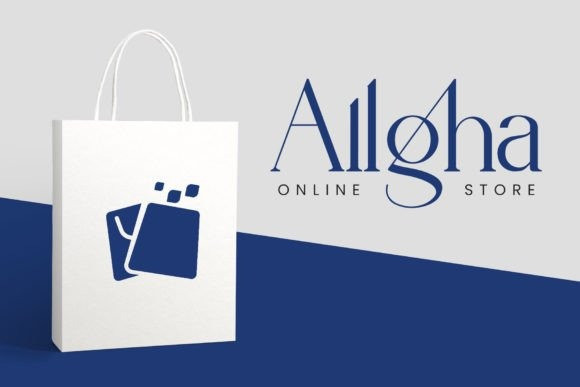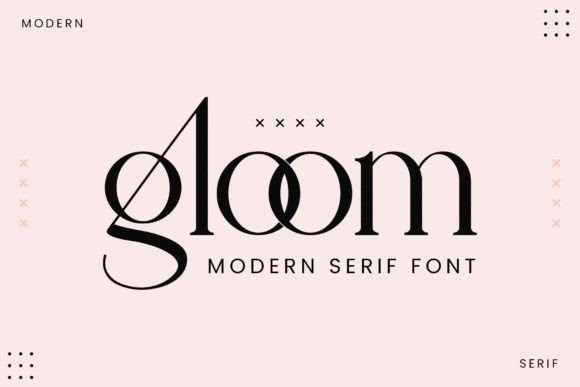
Gloom Font
Gloom Font, exudes sophistication and refinement with its clean lines and graceful curves. The subtle variations in stroke weight lend a sense of fluidity and movement to each letter, while the generous spacing between characters ensures easy legibility. Perfect for high-end designs and premium branding.